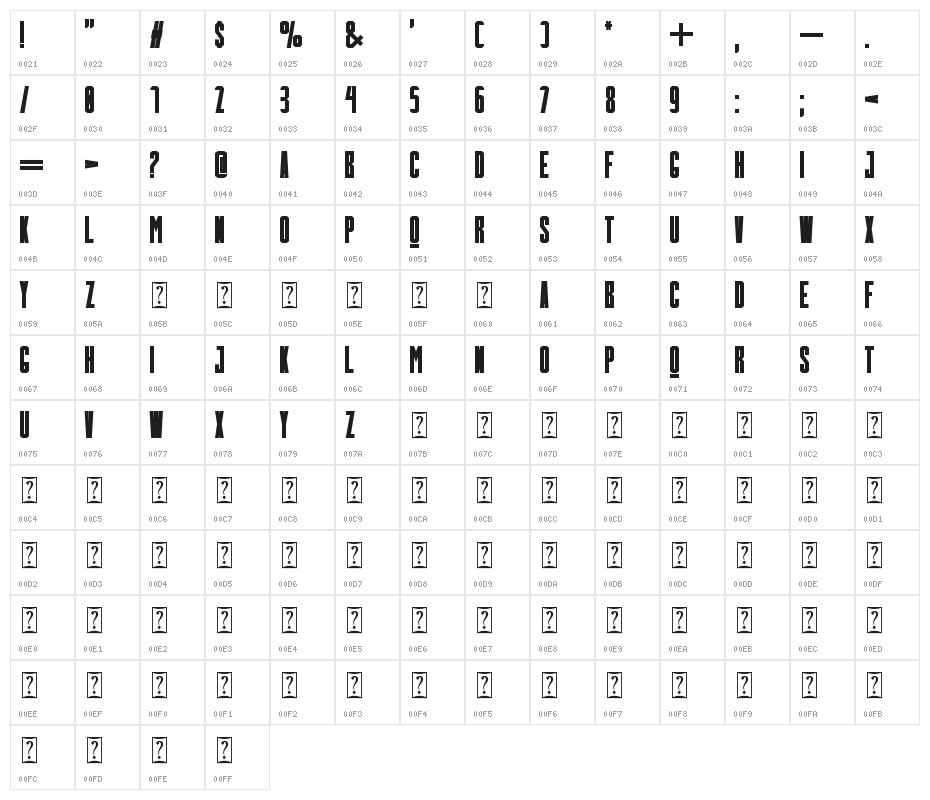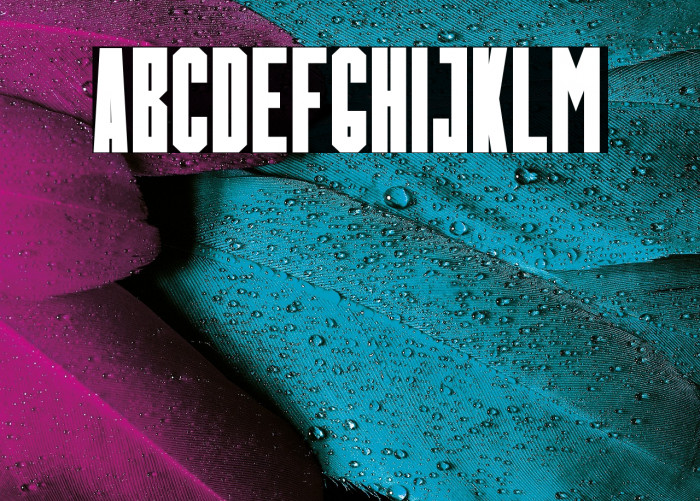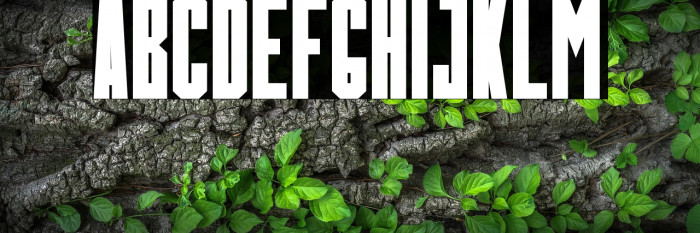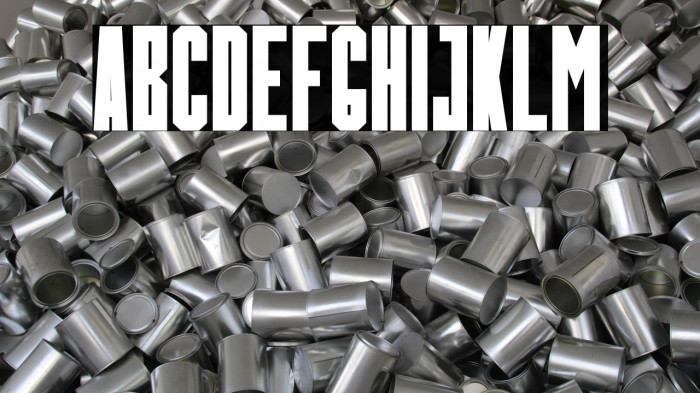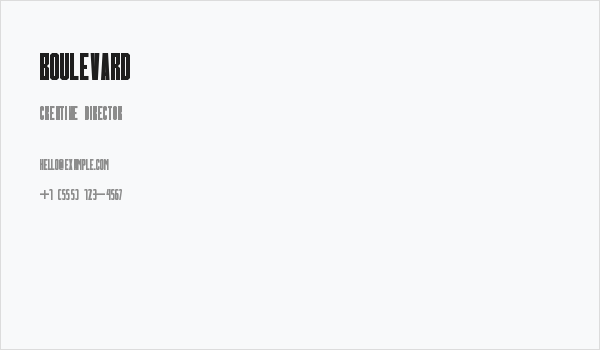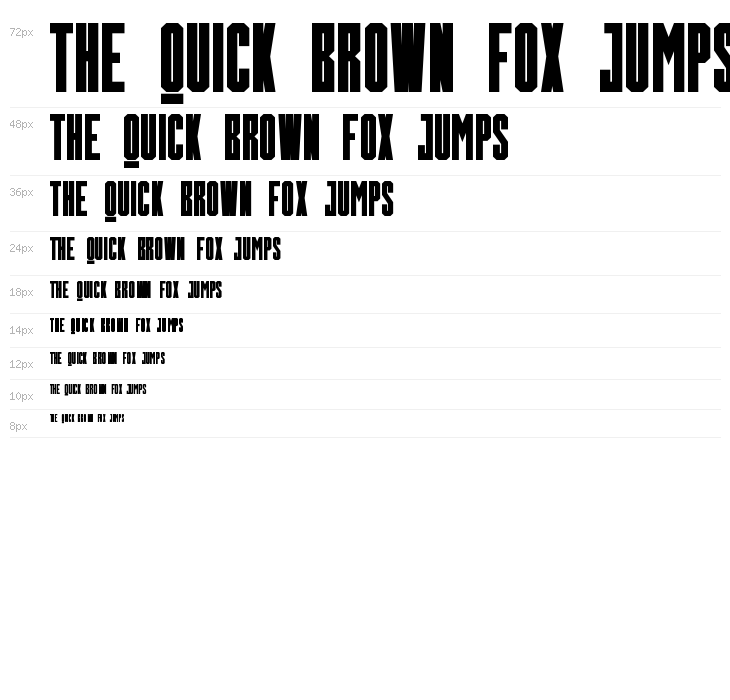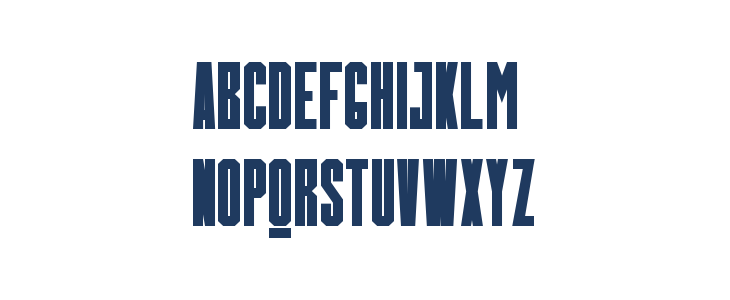
BOULEVARD Font
BOULEVARD Description
This font features a bold and impactful design with strong geometric shapes and a condensed width. The uppercase letters are uniform in height, creating a cohesive and structured appearance. The characters have a distinct block-like form, with sharp angles and clean lines that convey a sense of strength and modernity. The numerals and special characters maintain this bold aesthetic, ensuring consistency across all glyphs. The font's style is reminiscent of industrial and urban themes, making it suitable for projects that require a commanding visual presence.
| Proposed Projects | Ideal for posters, headlines, branding, and signage where a strong visual impact is needed. |